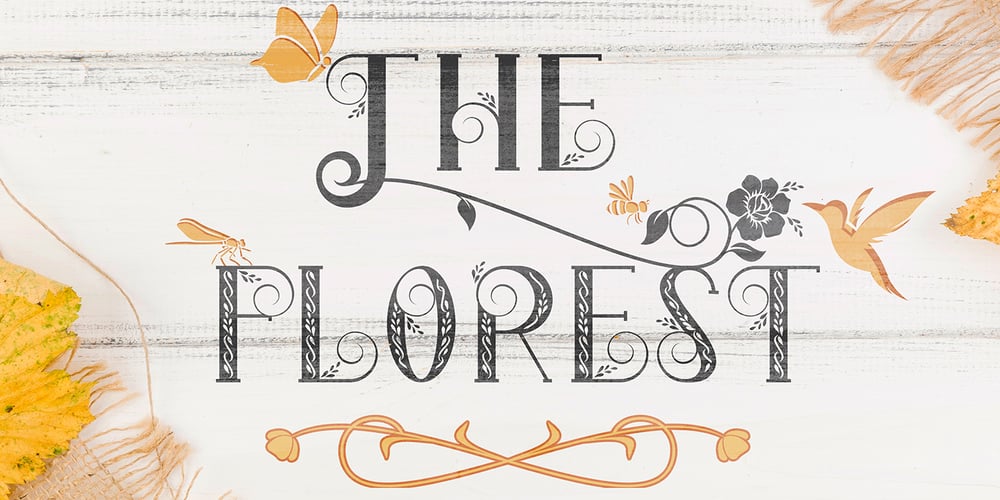
The Florest
The Florest font
The Florest Font Family was designed by Riska Kurniawan and published by BlackLotus. The Florest contains 5 styles and family package options. The Florest is a display type font inspired by the beauty of nature on florest island, Indonesia. The Florest has a characteristic impression of nature that will beautifully translate into a wide variety of design ideas.Include :The Florest Reguler (with Alternate)The Florest Outline (with Alternate)The Florest Deco (with Alternate)The Florest Deco Outline (with Alternate)The Florest Dingbats Swash